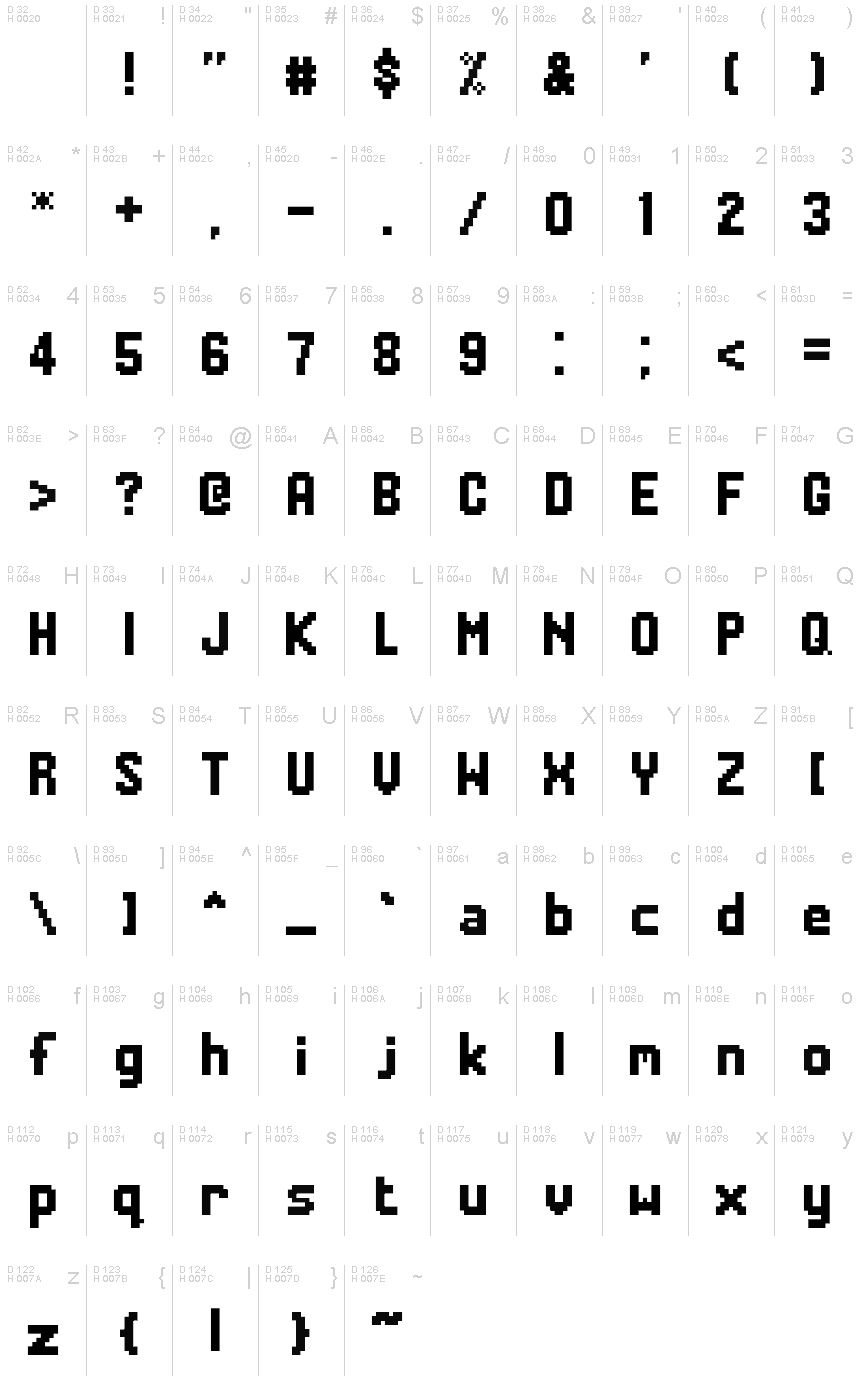
Mania, a captivating pixelated font crafted by SpeedySpikes, exudes a bold, retro-inspired charm that captivates the eye. This bitmap font's sharp, geometric letterforms evoke a distinct, arcade-style aesthetic, making it an ideal choice for projects seeking a visually striking, nostalgic appeal.
The font's bold weight and crisp, pixelated edges lend it a dynamic, attention-grabbing presence, perfect for headlines, logos, and digital interfaces. Its unique style seamlessly blends modern design sensibilities with a nod to classic gaming aesthetics, creating a font that is both contemporary and timeless.
Mania by SpeedySpikes shines in a variety of applications, from eye-catching promotional materials to retro-themed video game interfaces. Its versatility makes it a valuable asset for designers, artists, and developers seeking to incorporate a bold, pixelated aesthetic into their creative endeavors.
Recreated by SpeedySpikes/Ian Schwabe.